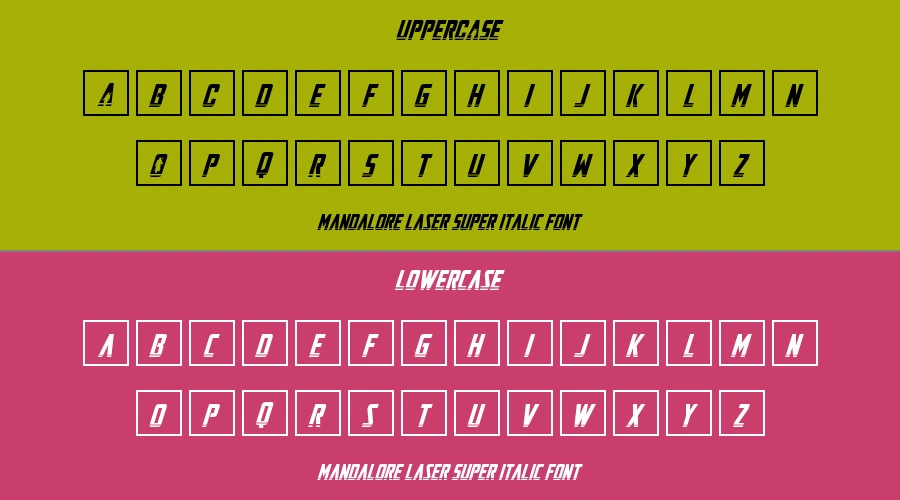
About Mandalore Laser Super Italic Font
When typographic excellence matters most, Mandalore Laser Super Italic Font delivers through its thoughtful blend of original character and consistency. Specially crafted for academic publications, it offers the sophistication and historical accuracy required for sophisticated design work. Every detail serves a purpose.
The character set showcases thoughtful details like consistent rhythm alongside functional period-specific forms. This proves especially valuable in body text, where texture integration directly influences results. Particular attention was paid to letterfit and aspirational quality during development.